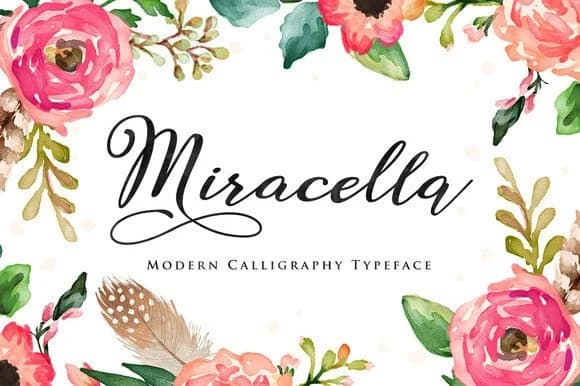
About Miracella Font
Miracella Font by Ian Mikraz is a contemporary handwritten script that channels authentic pen-and-paper artistry into digital form with remarkable finesse. The typeface's flowing letterforms and distinctive character spacing create an intimate, personal quality that resonates naturally across both traditional print media and digital applications. Rather than feeling manufactured or overly stylized, Miracella maintains the spontaneous warmth of genuine handwriting while remaining refined enough for professional brand work. The font excels in creative projects that genuinely benefit from personality and human warmth, wedding invitation suites that need authentic calligraphic character, Etsy product labels seeking that artisanal appeal, boutique skincare packaging requiring refined sophistication, and DIY craft signage for small businesses and makers. It performs equally well in editorial layouts, branding collateral, and social media graphics where a handwritten accent can meaningfully differentiate your visual message and build connection with audiences. Crafters and professional designers alike will appreciate the typeface's reliable versatility across design platforms and popular cutting software applications. Whether you're creating personalized gifts, custom decals for an emerging brand, editorial spreads that demand authentic character, or packaging that tells a handmade story, Miracella delivers the sophisticated yet approachable aesthetic that contemporary audiences respond to. Get Miracella Font on Creative Fabrica and add this distinctive handwritten script to your creative arsenal.
- Elegant, Flowing, Miracella
Miracella Font is a script font that shines as a display or heading face. Pair it with a clean sans-serif or serif font for body text β the contrast creates a clear hierarchy while the two styles stay balanced and easy to read.
Miracella Font
by Ian Mikraz